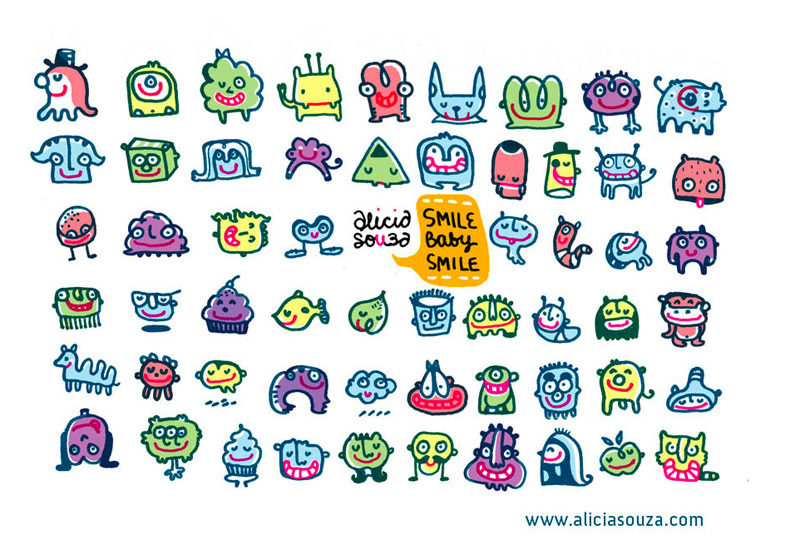
Smile Baby Smile by Alicia Souza is a free cartoon dingbat font filled with hand-drawn creatures, each built from loose outlines, comic facial details, and irregular interior marks. Round bodies, uneven teeth, waving arms, spikes, and staring eyes recur across the set, giving the symbols the lively wobble of quick sketchbook drawings.
The cartoon-monster theme makes it a natural fit for children's publishing, party invitations, game graphics, and playful merchandise. Across those uses, the expressive faces let each symbol act as a tiny illustrated mascot rather than ordinary lettering.
Smile Baby Smile
Alicia Souza